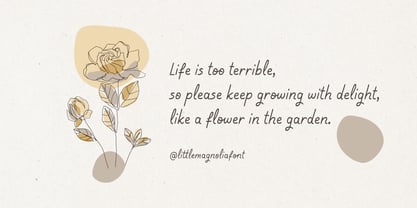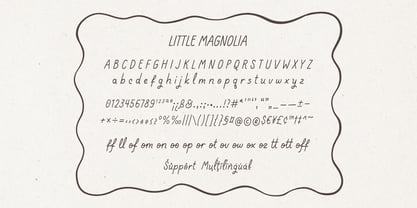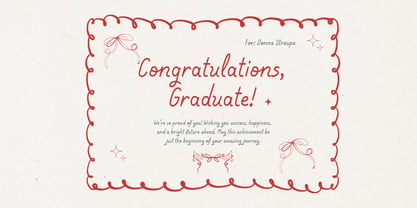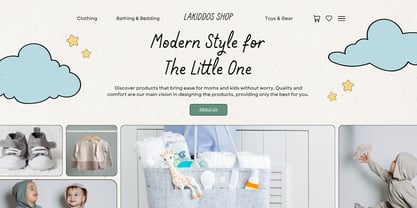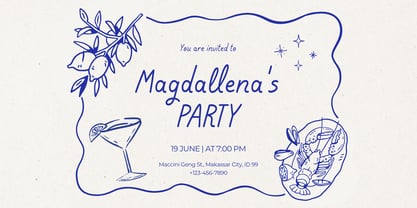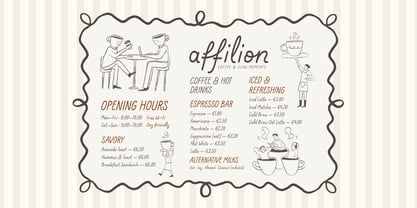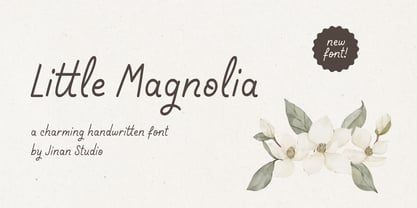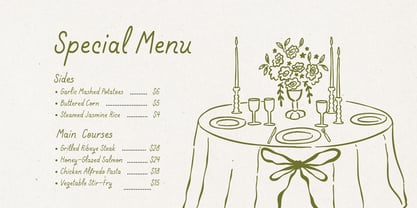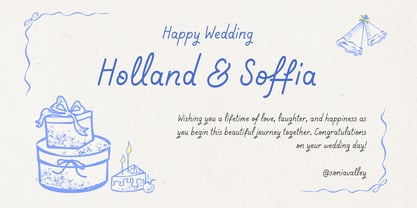
Little Magnolia
by Jinan Studio
The Little Magnolia Font Family was designed by Andi Syahdang and published by Jinan Studio. Little Magnolia contains 1 styles. More about this family
Little Magnolia is a charming handwritten font with a natural, smooth, and elegant style. Designed to look like real handwriting, it adds a warm and personal touch to any creative project. Its clean and easy-to-read letterforms make it perfect for both professional and everyday designs.
Whether you're creating logos, branding, wedding invitations, greeting cards, product packaging, social media posts, or craft projects, Little Magnolia brings a beautiful handcrafted feel that stands out effortlessly.
Features:
• Uppercase & Lowercase
• Numbers & Punctuation
• Ligatures
• Multilingual Support
Perfect For:
Branding, logos, wedding invitations, greeting cards, packaging, social media, quotes, book covers, stickers, Cricut projects, DIY crafts, and more.
Add a soft, elegant, and authentic handwritten touch to your designs with Little Magnolia. It's a versatile font that works beautifully for both personal and commercial projects.